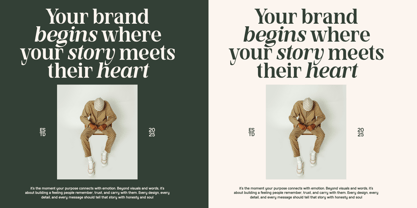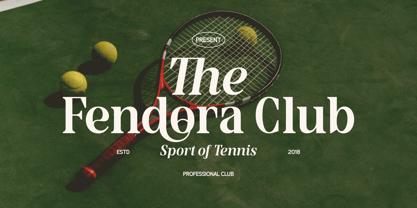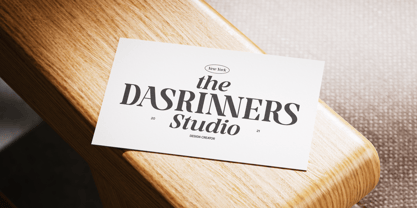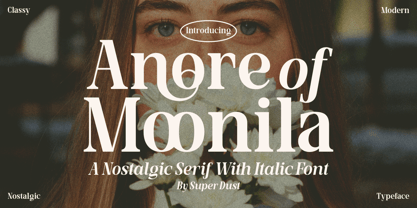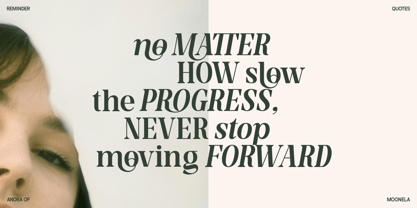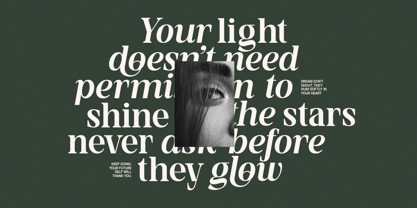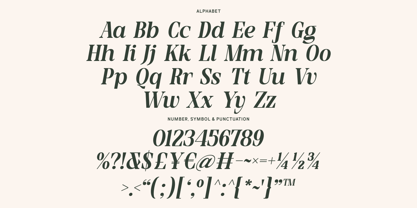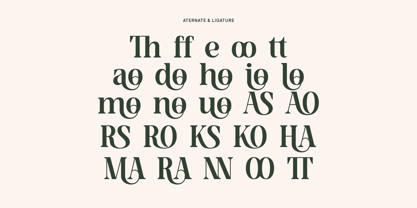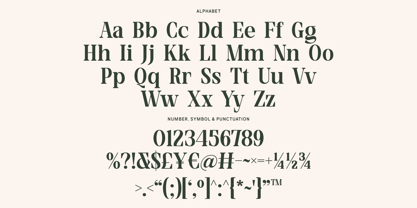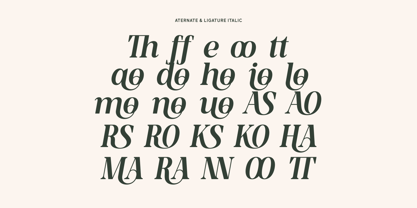
Anore of Moonila is a nostalgic serif font family that captures the warmth of classic typography while embracing modern elegance. Inspired by vintage editorials, timeless literature, and the romantic atmosphere of moonlit evenings, this typeface brings a sense of sophistication and storytelling to every design. The family includes both Regular and Italic styles, offering versatility for creative compositions and expressive typography.
Design Inspiration
Anore of Moonila draws inspiration from nostalgic print culture, vintage fashion magazines, and the graceful beauty of traditional serif lettering. Its carefully crafted forms combine classic charm with contemporary refinement, creating a typeface that feels both familiar and distinctive.
Font Character
Featuring elegant serifs, smooth curves, and balanced proportions, Anore of Moonila delivers a refined and graceful appearance. The Regular style provides a strong and timeless foundation, while the Italic style adds movement, personality, and romantic flair. Together, they create a harmonious font family suitable for premium and artistic projects.
Usage
Anore of Moonila is perfect for:
Luxury branding and visual identity
Fashion and beauty campaigns
Editorial and magazine design
Book covers and publishing projects
Wedding invitations and stationery
Product packaging
Social media content
Logos and sophisticated headlines
OpenType Features
Designed to provide creative flexibility, Anore of Moonila includes a rich set of OpenType features:
The included alternates and ligatures allow designers to create unique, elegant, and personalized typography with ease.
With its nostalgic soul, elegant serif details, versatile Regular and Italic styles, and thoughtfully crafted alternates and ligatures, Anore of Moonila is a font family designed to bring timeless beauty and character to modern creative work.